Polaris Font
Polaris is a simple and bold sans serif font. It can easily be matched to an incredibly large set of projects, so add it to your creative ideas and notice how it makes them stand out!
Trista Font
Trista is a cool, brushed display font. No matter the topic, this font will be an incredibly asset to your fonts’ library, as it has the potential to elevate any creation.
Kekfish Font
Kekfish is an authentic display font that is readable, bold and stylish. It is defined by smooth curves and is perfect for fashion branding or editorial designs. Add it confidently to your projects, and you will love the results.
Wayhem Font
Wayhem is a textured brushed handwritten font. This font reads as strong, confident, and dynamic and can add tons of trendy character to your designs.
Fiagain Font
Fiagain is a tall and versatile sans serif font. It can easily be matched to an incredibly large set of projects, so add it to your creative ideas and notice how it makes them stand out!
Ladylord Font
Ladylord is a lovely and delicate script font that exudes elegance and class. This font was particularly crafted for those who need a beautiful and refreshing look to their designs. Ladylord is PUA encoded which means you can access all of the glyphs and swashes with ease!
Mozaik Ramadhan Font
Mozaik Ramadhan is a modern, playful and unique display font, influenced by Arabic styles. It is defined by smooth curves and is perfect for fashion branding or editorial designs. Add it confidently to your projects, and you will love the results.
Dasser Font
Dasser is a modern and brushed handwritten font, crafted to give your headlines and logotype projects a stylish touch. This font reads as strong, confident, and dynamic and can add tons of urban character to your designs.
Beriva Font
Beriva is an organic and unique sans serif font. It can easily be matched to an incredibly large set of projects, so add it to your creative ideas and notice how it makes them stand out!
Netto Brushes Font
Netto Brushes is a gorgeous and bold brushed handwritten font, crafted to give your headlines and logotype projects a stylish touch. This font reads as strong, confident, and dynamic and can add tons of nostalgic character to your designs.
Amanda Kleen Font
Amanda Kleen is a chic, refined script font that emanates sophistication and elegance. Its stylish alternates and ligatures make this font the perfect match for any project.
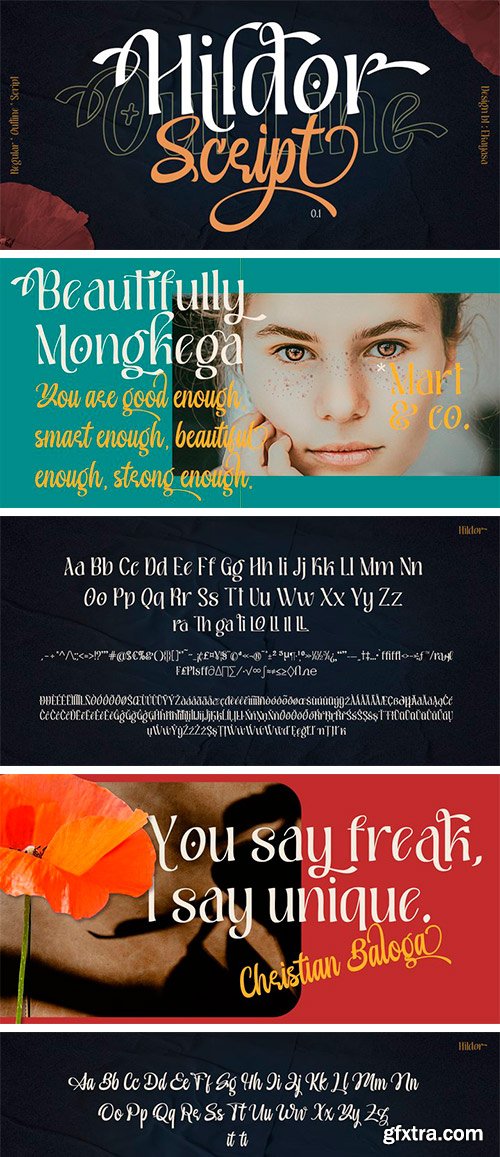
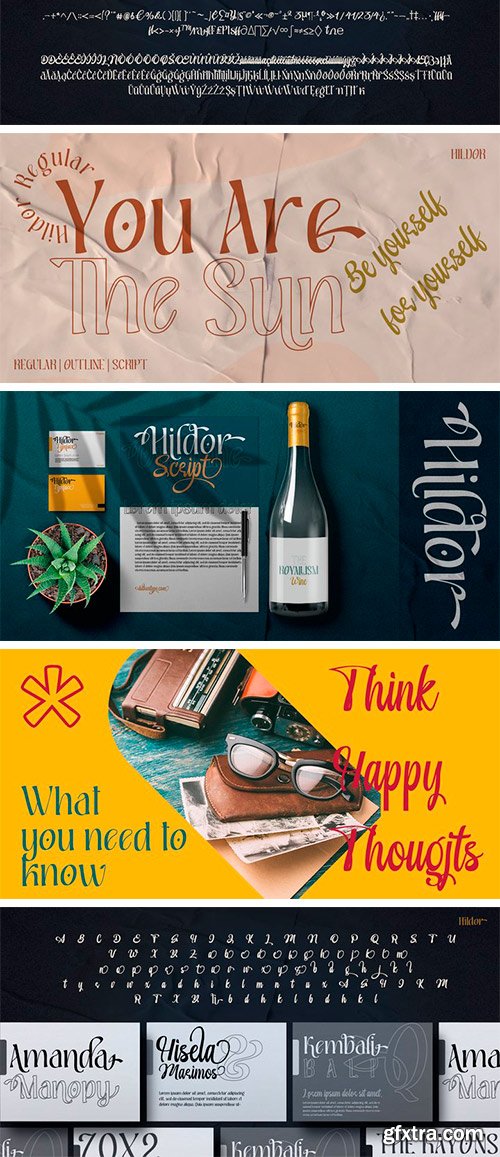
Hildor Font is a beautiful and stylish font family that offers many elegant serif, classic and elegant style for poster design, magazines, beauty branding with a flower-shaped asterisk glyph suitable for your beautiful and elegant design concept. Hildor Font | Beautiful and Elegant Display Font family with alternates that you can combine to get curves and beautiful shapes just in seconds. Play with the ornaments to create a more stunning display.
Darkness Brush Font
Darkness Brush is a modern brushed display font, incredibly adaptable to all sorts of urban or street related designs. It is suitable for any branding, product packaging, invitation, quote, t-shirt, label, poster, logo that you wish to create.
Dont Worry Font
Dont Worry is a delicate and organic decorative font. Add this romantic and lovely looking font to each of your love letters, wedding invitations or favorite design ideas, and you will be astounded by the outcome.
Sellyha Font
Sellyha is an elegant script font with a contemporary atmosphere and impeccable form, inspired by timeless classic calligraphy. Not too thin and not too thick, balanced and varied, this font was designed to enhance the beauty of your projects. Sellyha is PUA encoded which means you can access all of the glyphs and swashes with ease!
Horror is a Bold font that's have a Scary touch perfect for Halloween, Poster, Merchandise, etc. Crafted specially to make your design stand out and have scary-feel with more funny shapes and enjoy to explore.
Marylane, a monoline script font that's great for headline, logo, poster, signage, and more. It supports basic latin multilingual characters and you can also customize with alternates character into the words that great for you.